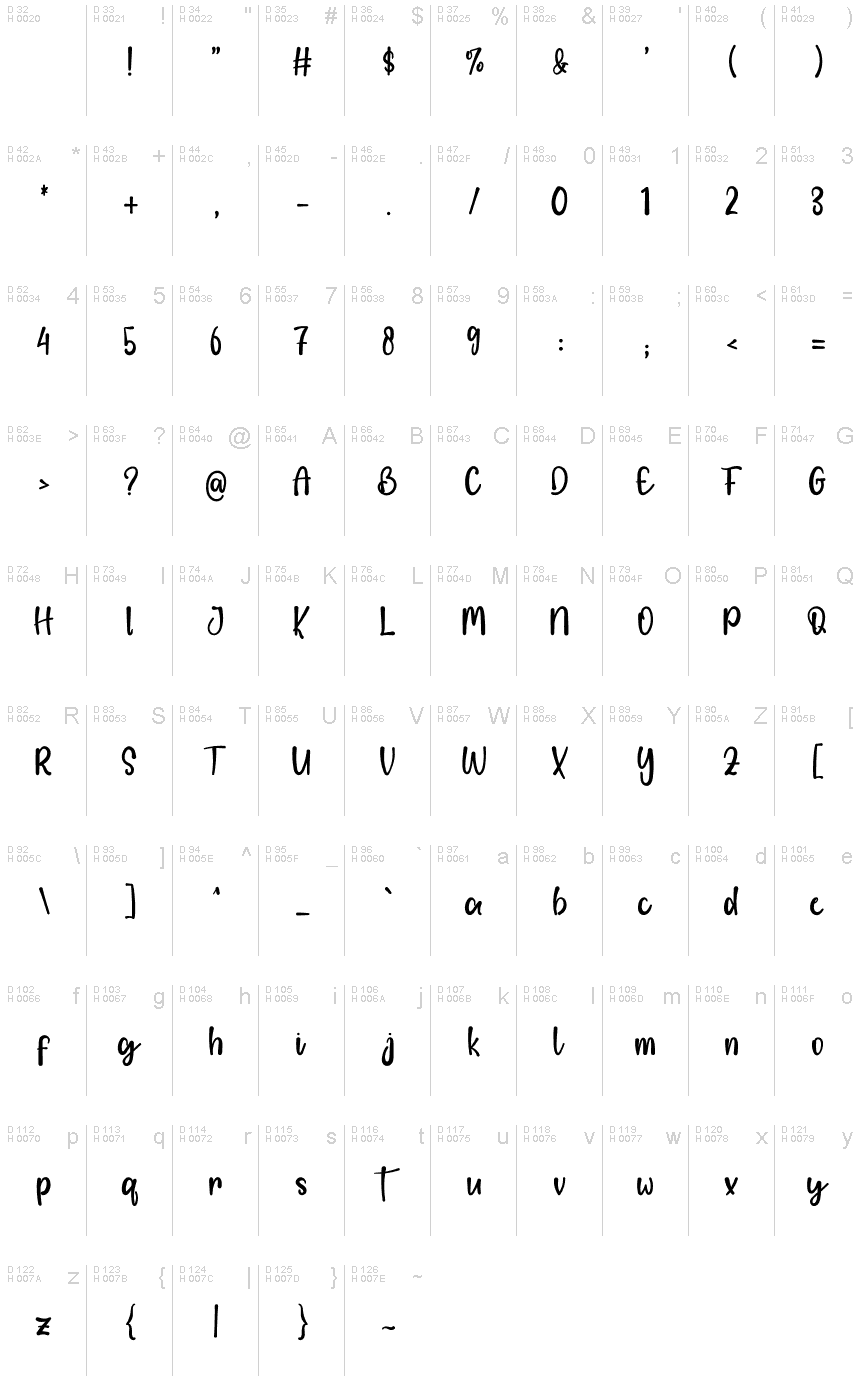
Hello Pink
Hello Pink is a lovely handwritten font designed by Inermedia Studio. Its unique and creative style is perfect for adding a whimsical touch to any project, such as greeting cards, t-shirt designs, posters and logos.